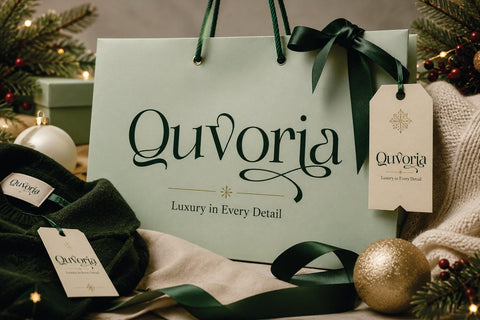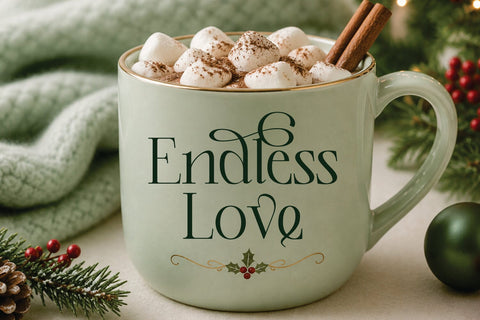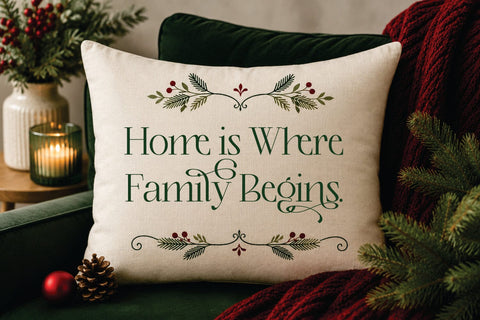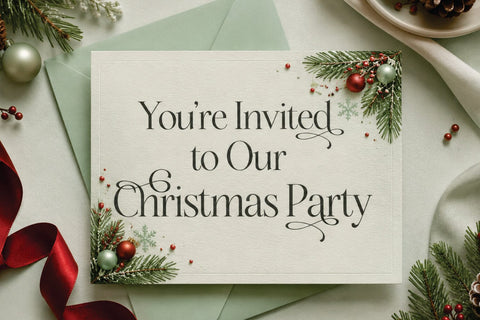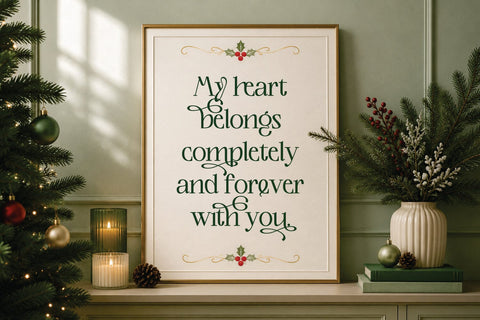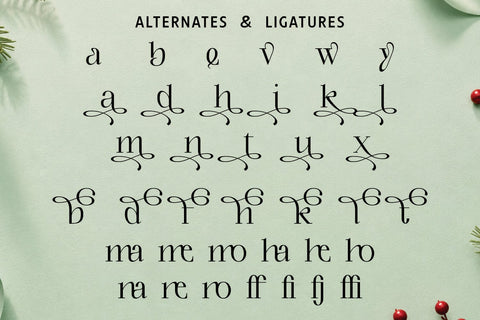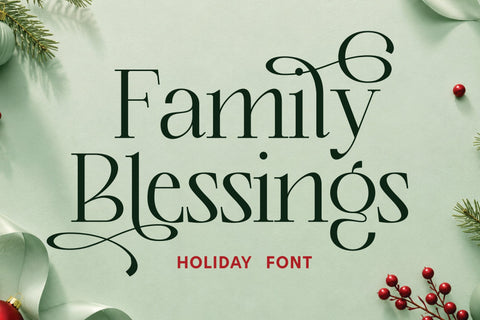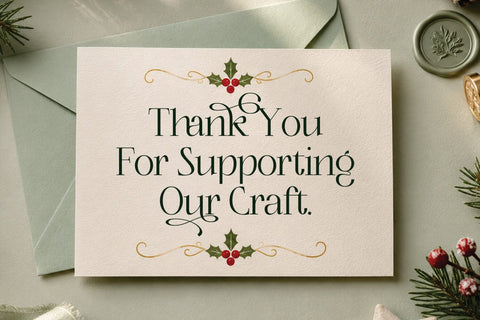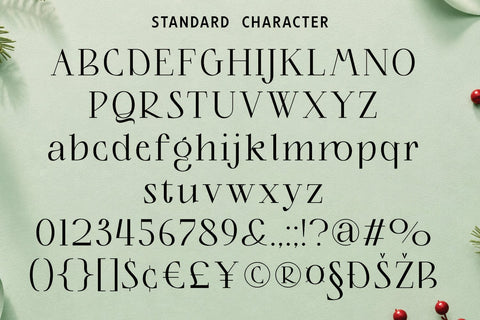
Christmas Font – Family Blessings
Family Blessings – Christmas Font
**Family Blessings** is a heartwarming Christmas font designed to celebrate love, togetherness, and the joyful spirit of the holiday season. Featuring charming letterforms with a festive personality, this font creates a cozy and meaningful atmosphere, making every design feel warm, welcoming, and full of Christmas blessings.
Crafted with a cheerful and decorative style, Family Blessings blends festive elegance with excellent readability. Its carefully designed characters capture the magic of Christmas while maintaining a clean and balanced appearance, making it perfect for both classic holiday traditions and modern seasonal designs.
Inspired by family gatherings, sparkling Christmas trees, cozy winter evenings, and the joy of sharing special moments, Family Blessings brings warmth and happiness to every creative project. The playful yet refined letterforms create typography that feels personal, memorable, and filled with festive charm.
Family Blessings is perfect for a wide variety of holiday applications, including Christmas cards, greeting cards, invitations, gift tags, festive packaging, seasonal branding, social media graphics, posters, and holiday marketing materials. Whether you’re designing for family celebrations or commercial campaigns, this font delivers an inviting and joyful visual experience.
The font also performs beautifully in craft and DIY projects such as Cricut creations, SVG files, handmade ornaments, stickers, scrapbooking, custom gifts, and holiday decorations. Whether used for digital or print media, Family Blessings adds warmth, creativity, and timeless Christmas spirit to every design.
*Key Features*
**Festive Christmas Style**
Beautiful holiday-inspired letterforms with a warm and cheerful personality.
**Cozy & Heartwarming Design**
Perfectly captures the love and togetherness of the Christmas season.
**Clean & Readable**
Decorative typography with excellent clarity for display use.
**Versatile Holiday Applications**
Suitable for seasonal branding, festive decorations, and creative holiday projects.
**Craft-Friendly Design**
Ideal for Cricut, SVG, DIY crafts, and handmade creations.
**Multilingual Support**
Extended character set for international creative projects.
*Perfect For*
• Christmas & Holiday Designs
• Greeting Cards & Invitations
• Gift Tags & Labels
• Holiday Packaging
• Seasonal Branding
• Posters & Promotional Materials
• Social Media Graphics
• Christmas Decorations
• Cricut & DIY Craft Projects
• Stickers & Scrapbooking
• Handmade Gifts & Merchandise